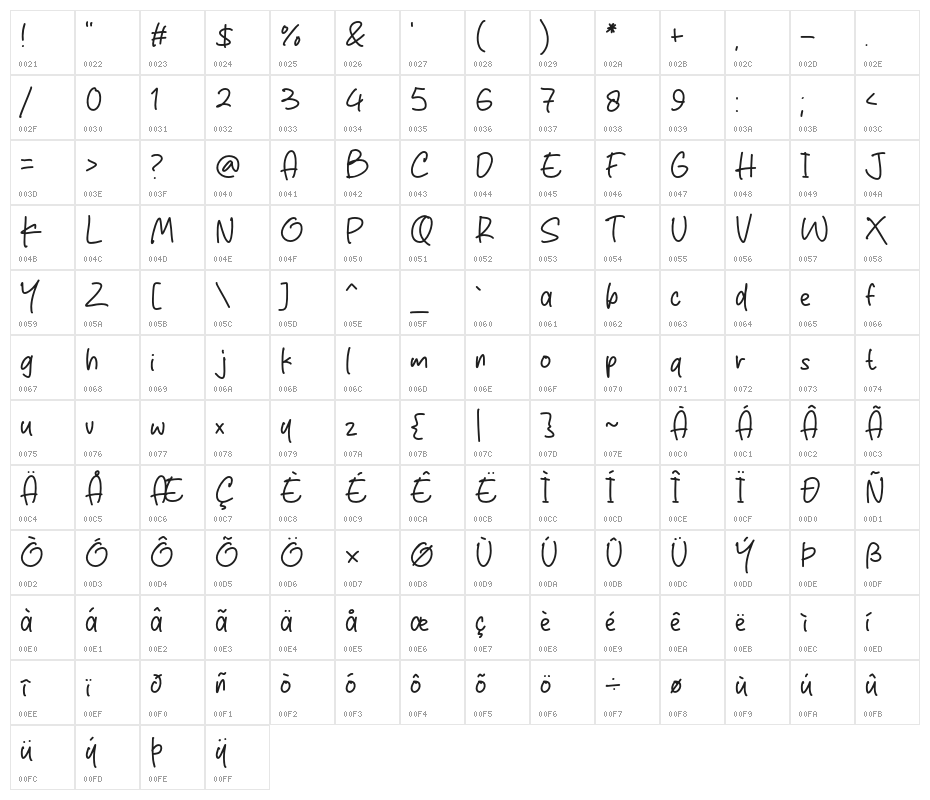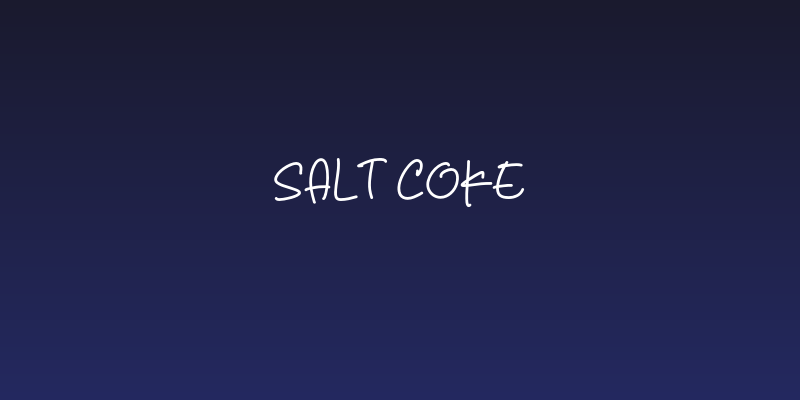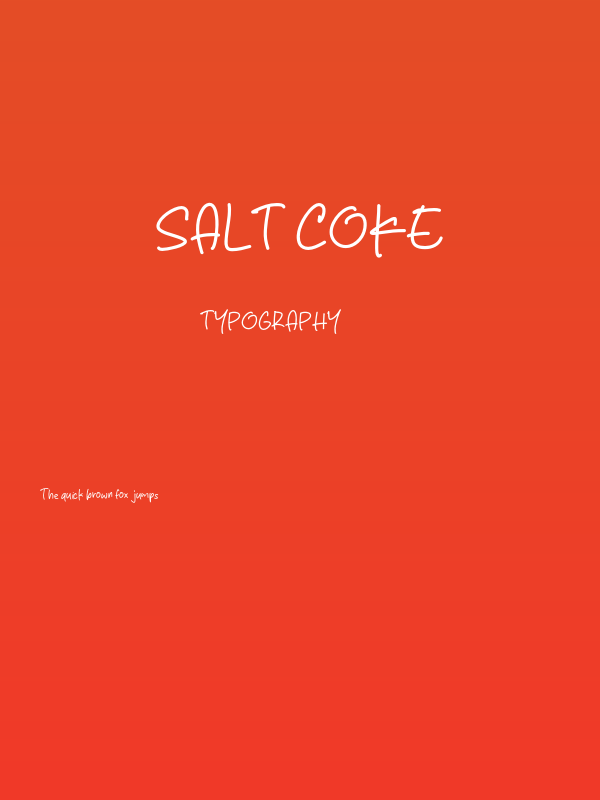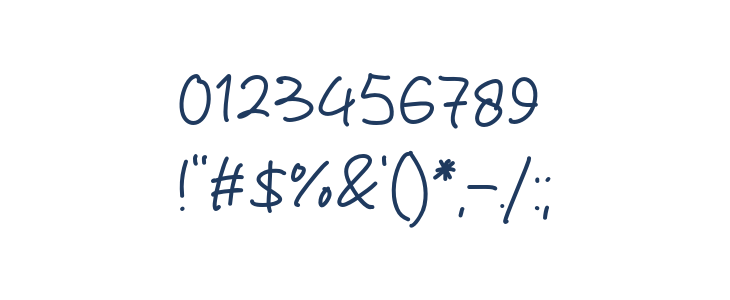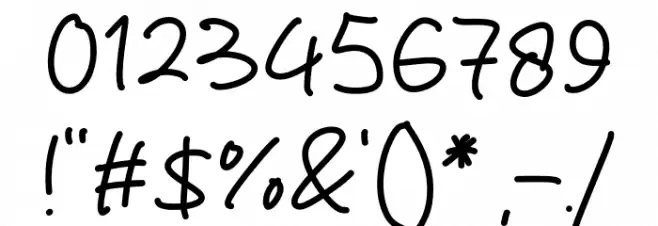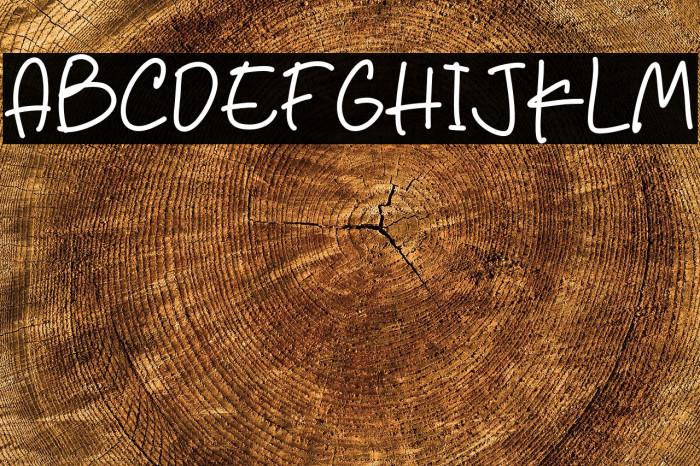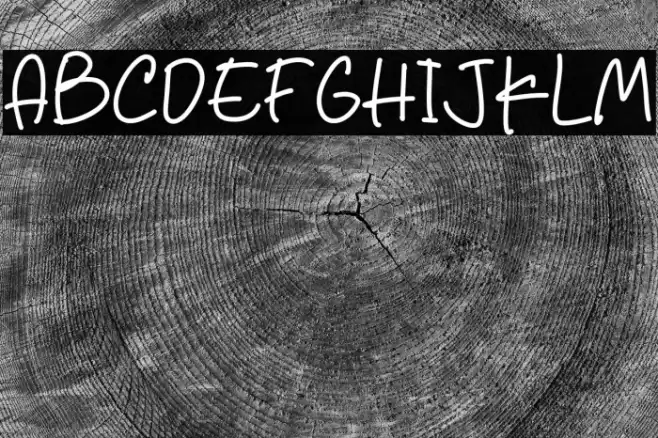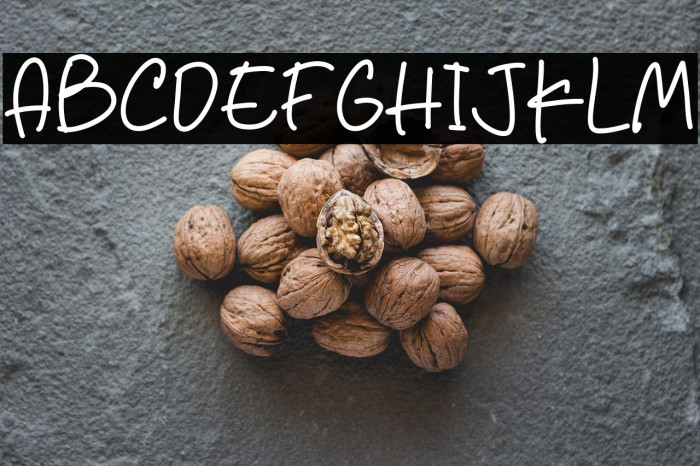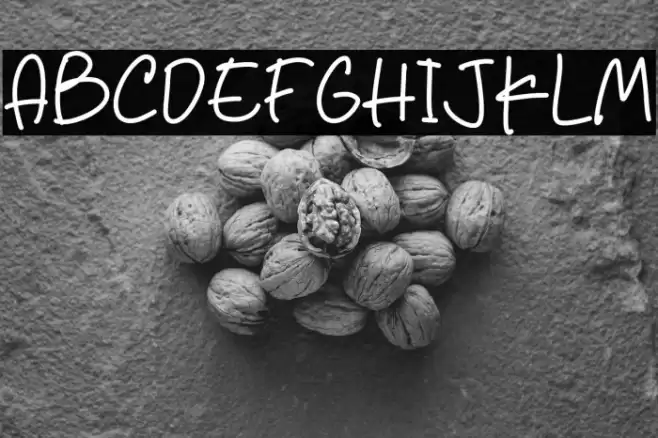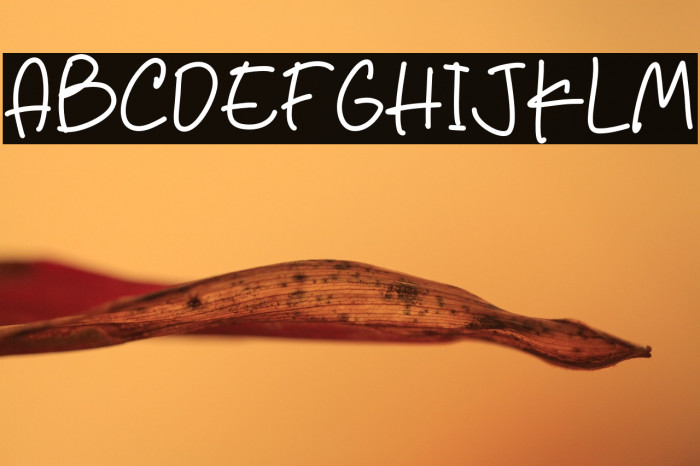
Salt Coke Font
Salt Coke Description
This font features a playful and casual handwritten style, characterized by its smooth, flowing lines and slightly irregular shapes that mimic natural handwriting. The uppercase and lowercase letters maintain a consistent style, with rounded edges and a friendly appearance. The numerals and special characters follow the same aesthetic, ensuring a cohesive look across all elements. This font exudes a sense of informality and approachability, making it ideal for projects that require a personal touch. The overall design is clean and legible, with a medium stroke weight that provides good readability without sacrificing its whimsical charm.
| Overall Style | Casual |
| Use Case | Logos, Invitations, Social media graphics |
| Proposed Projects | Ideal for greeting cards, invitations, personal branding, and informal social media graphics. |